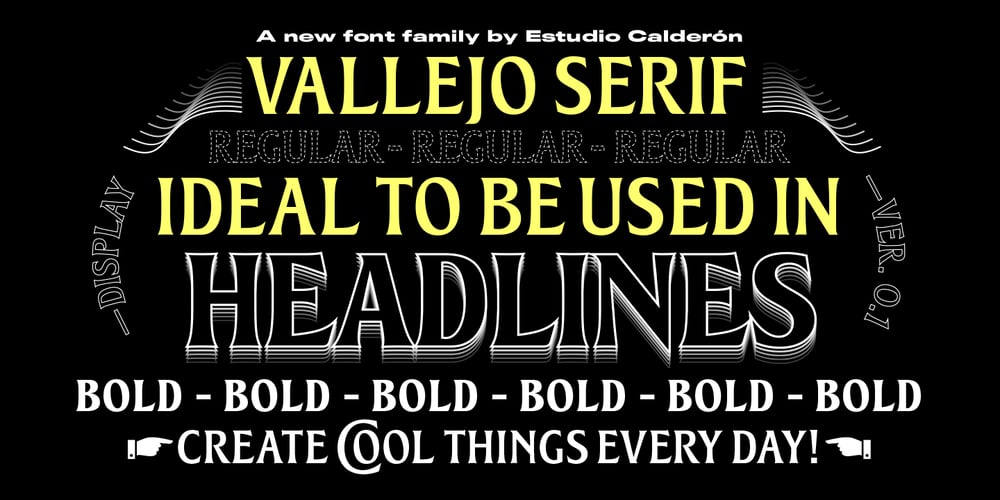
Vallejo Serif Font Family was designed by Felipe Calderón and published by Estudio Calderon. Vallejo Serif contains 2 styles and family package options. A serif display type family inspired by two popular fonts: Albertus and Friz Quadrata. We made an hybridization matching those kind of fonts that have flared and oversized serifs. Vallejo Serif is a versatile font because of the shapes that are adaptable to many sort of typographic compositions, we recommend to use it in headlines. The OpenType fonts have an extended character set to support Central and Eastern European as well as Western European languages.